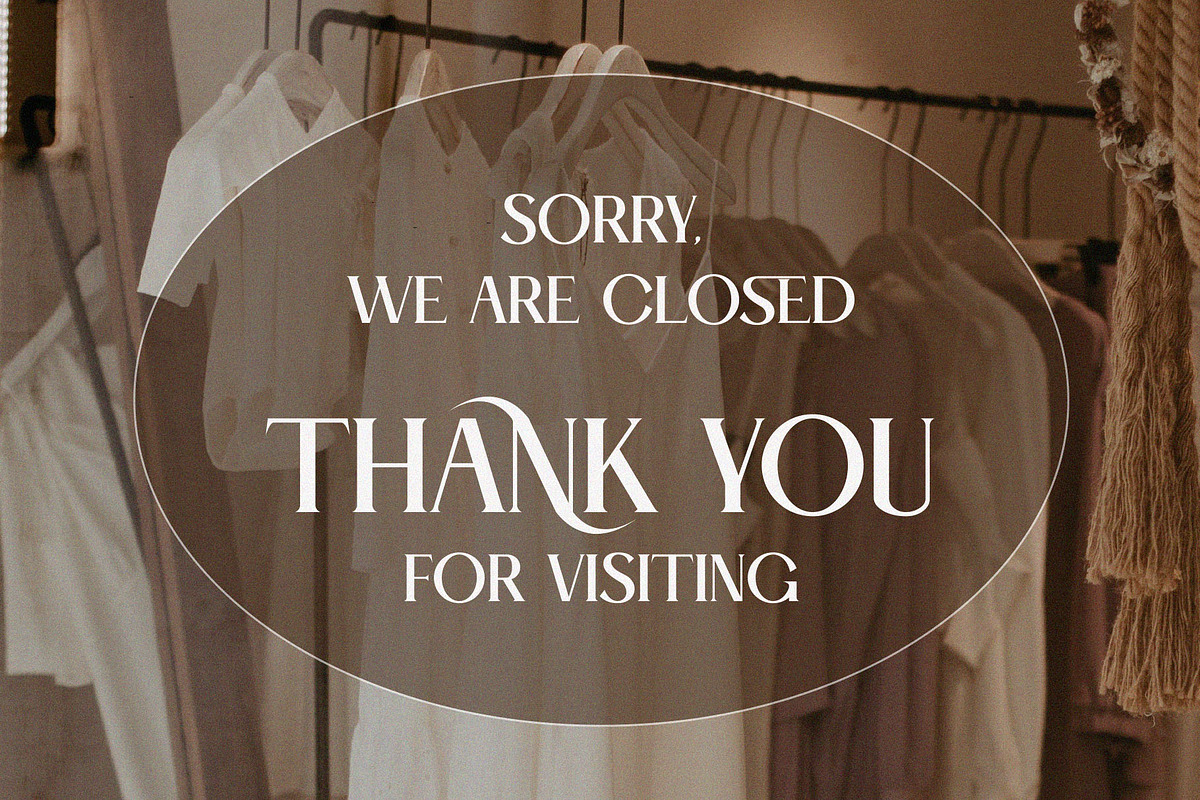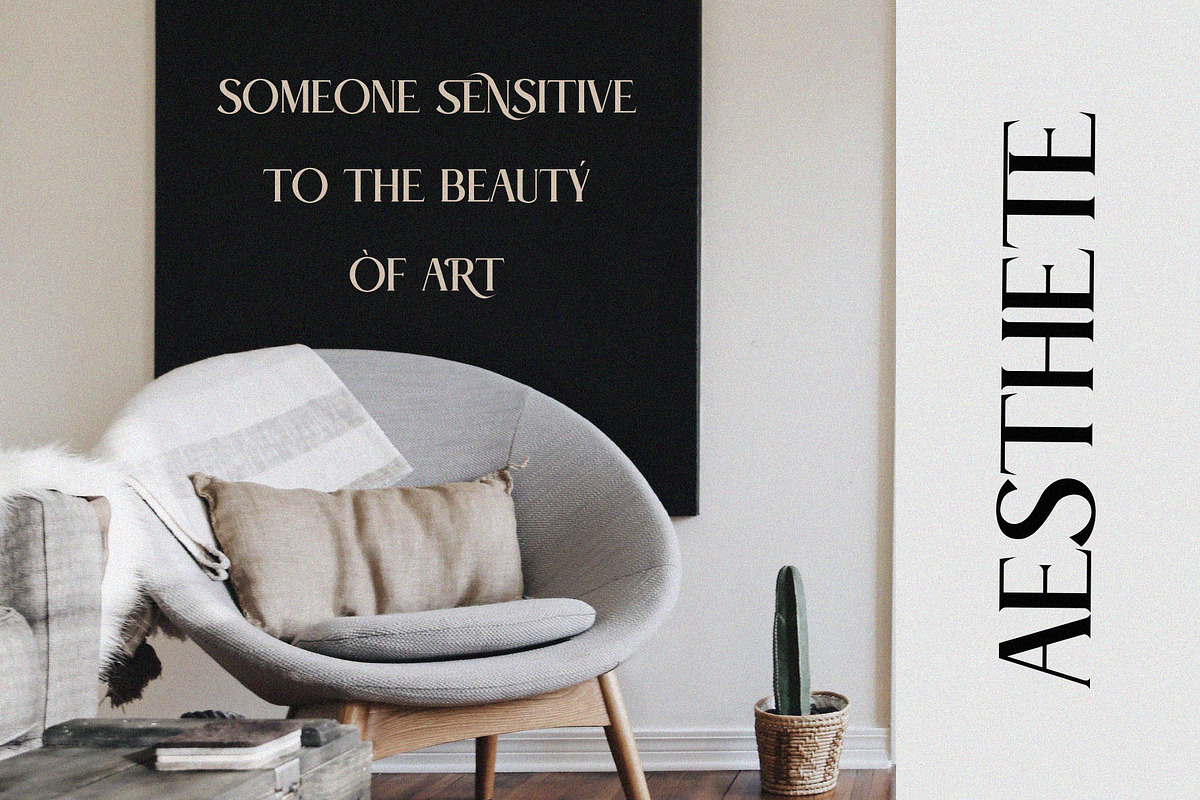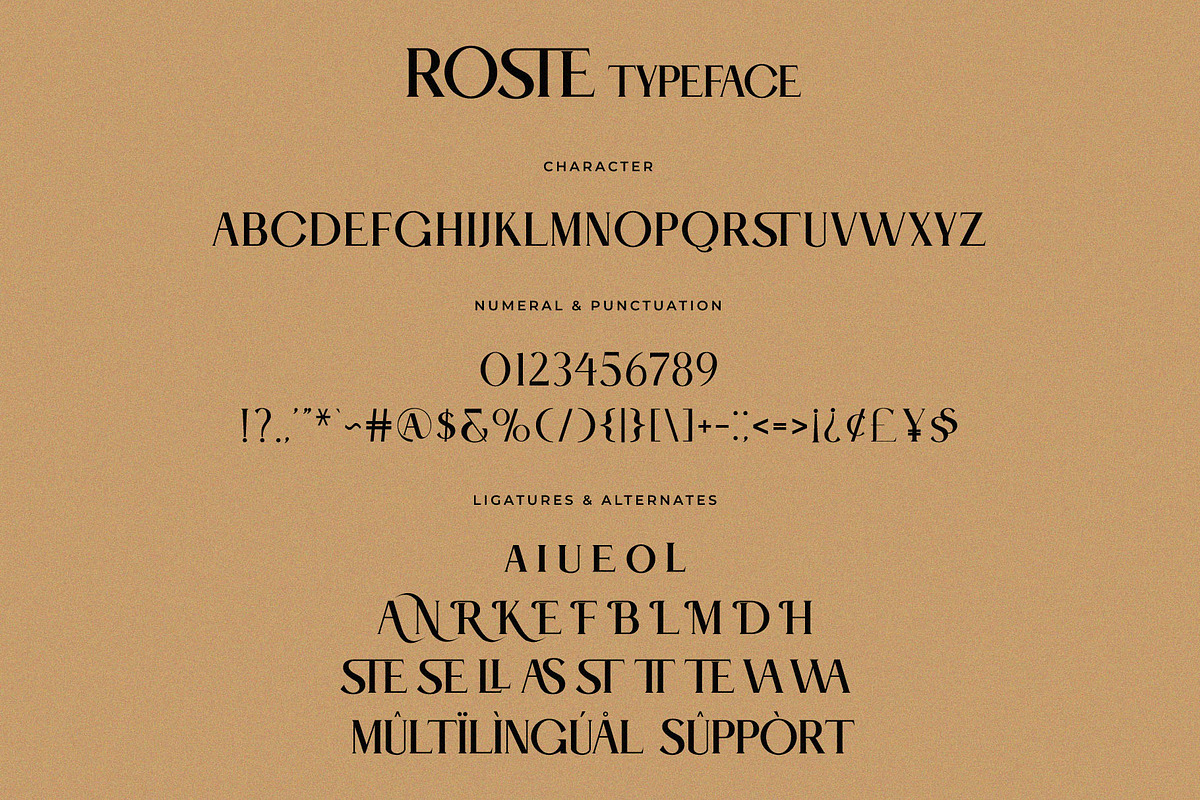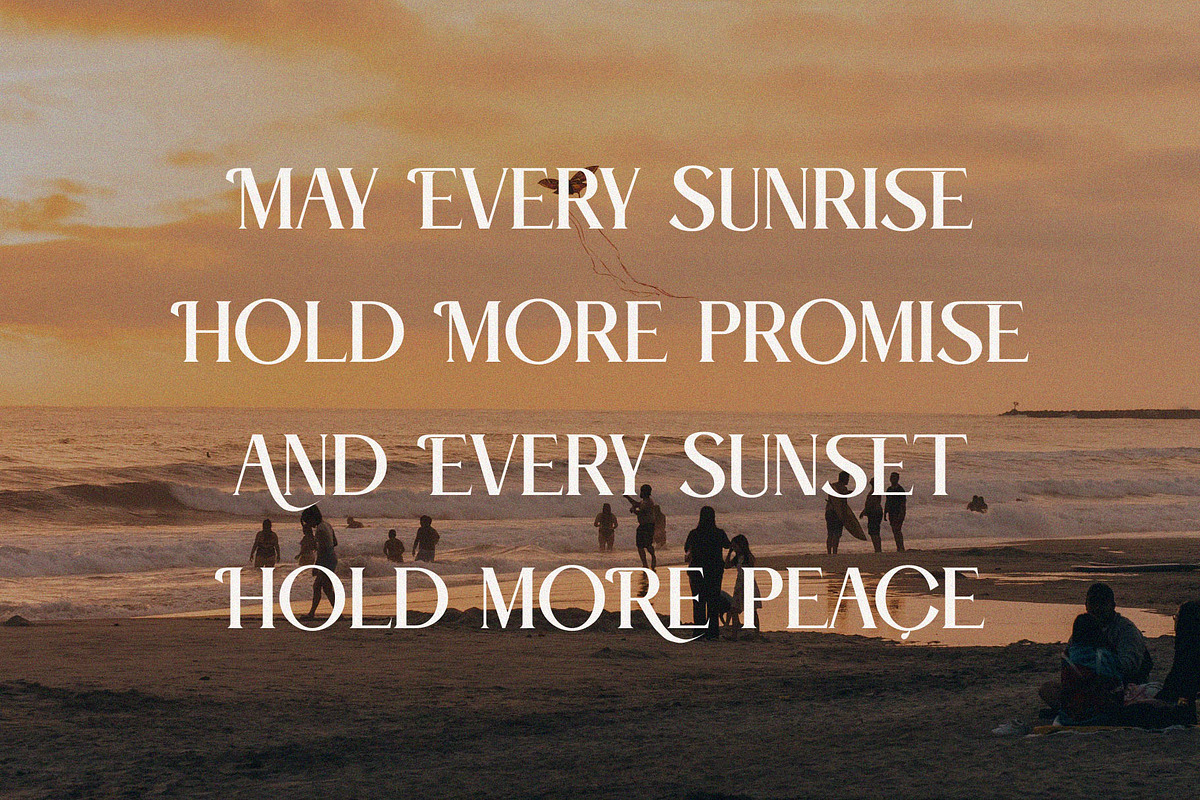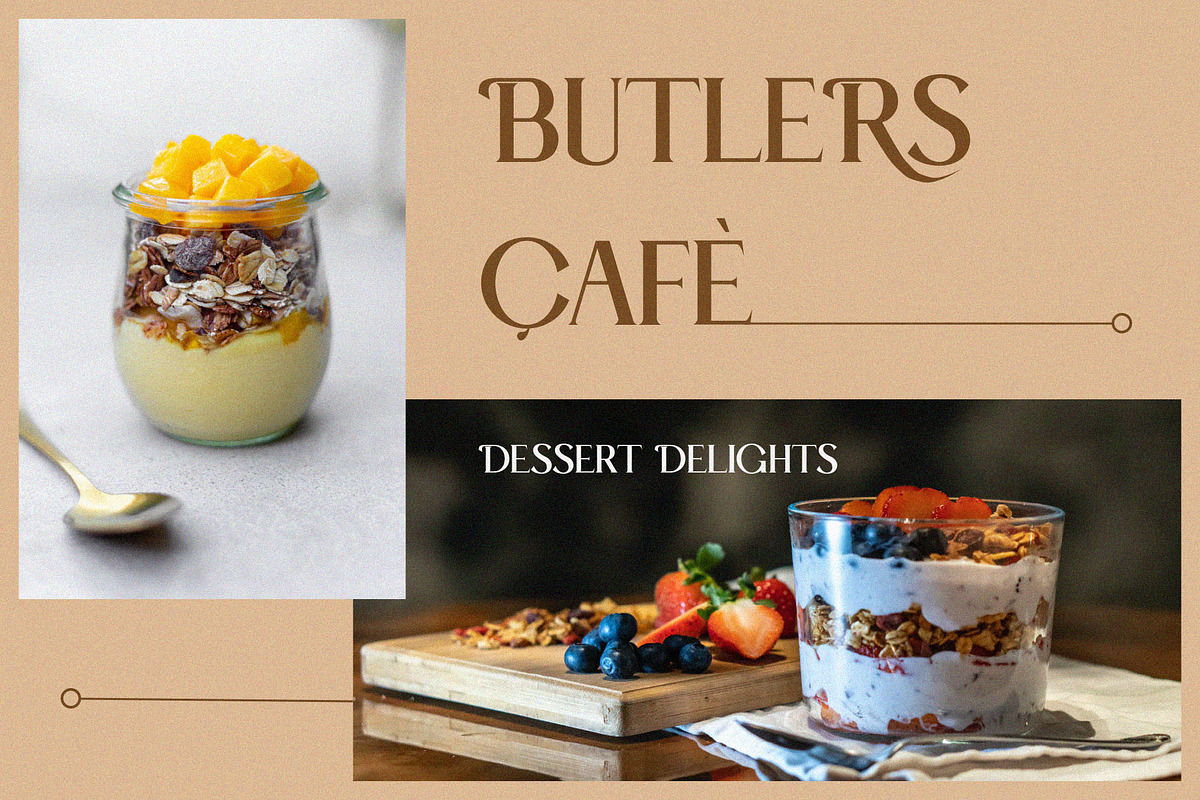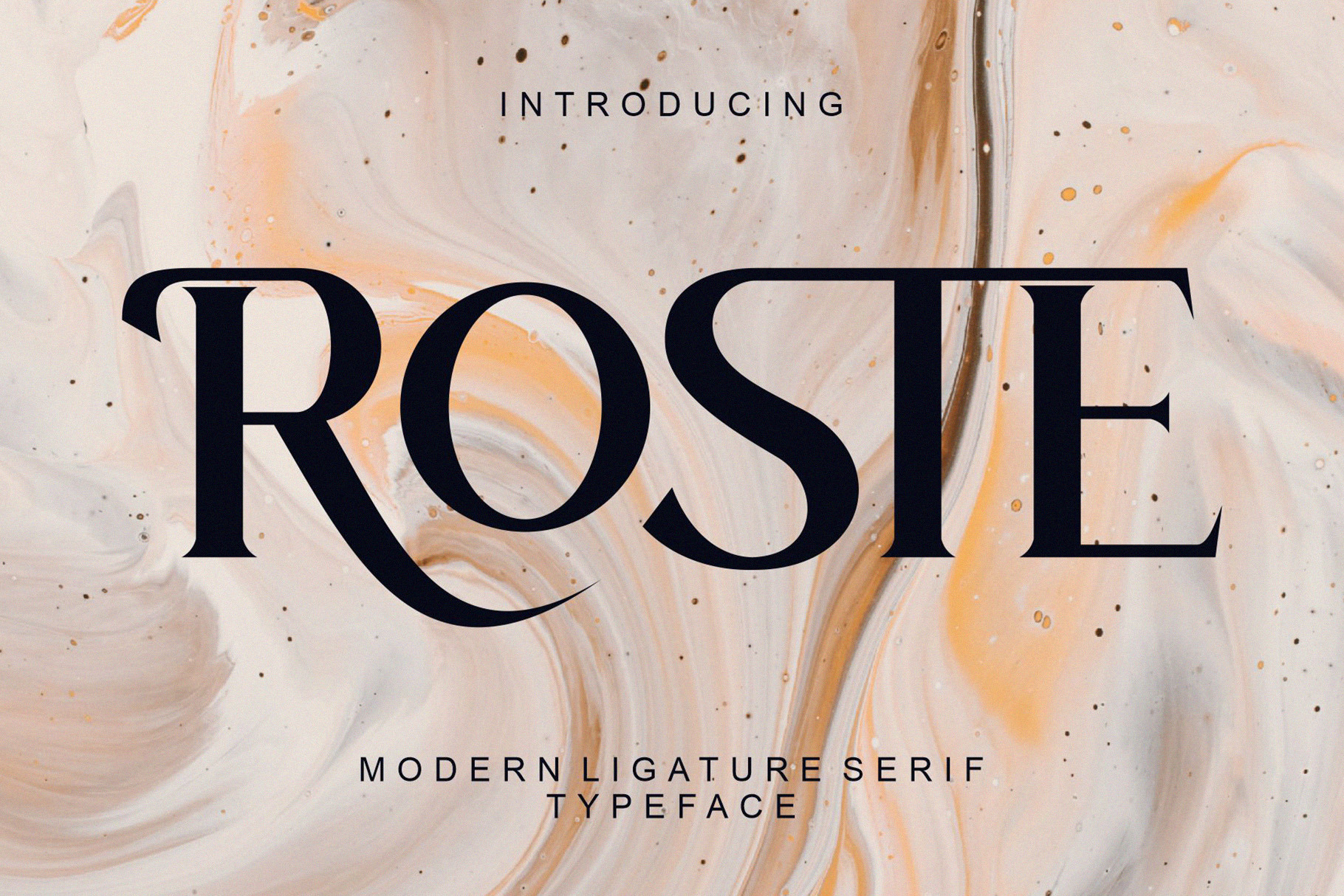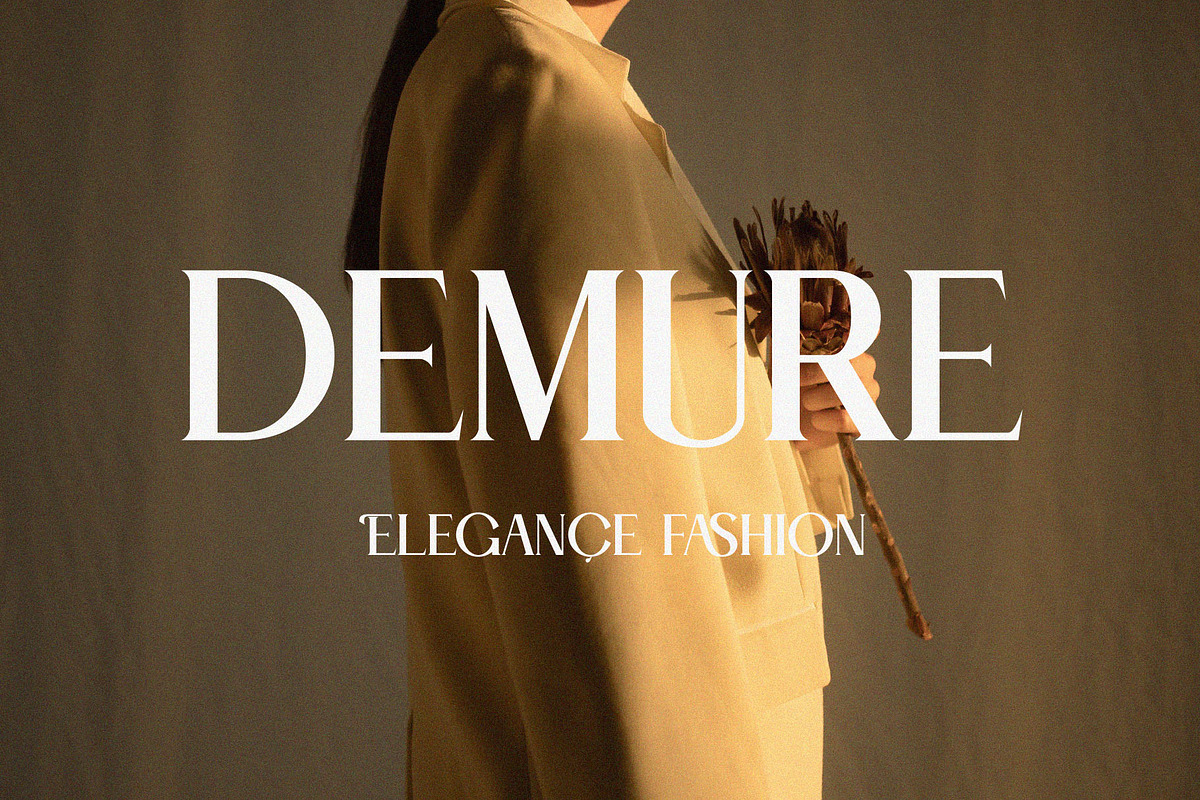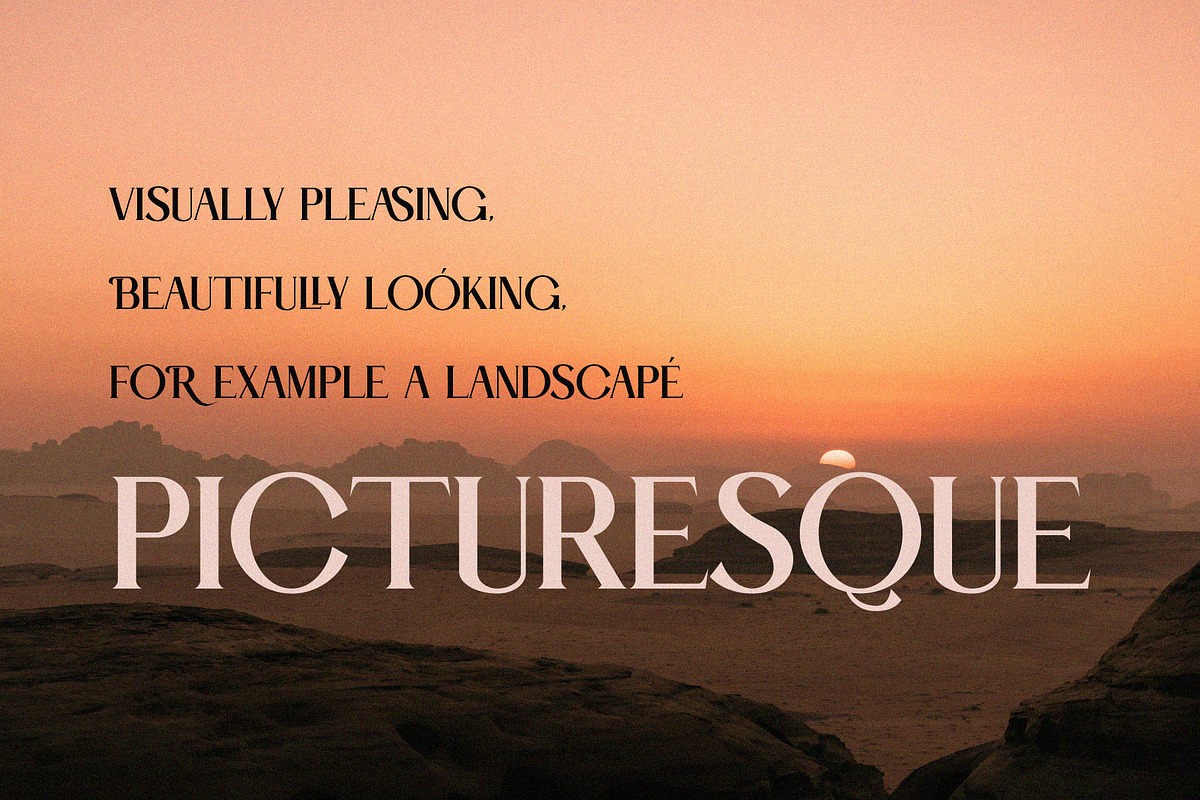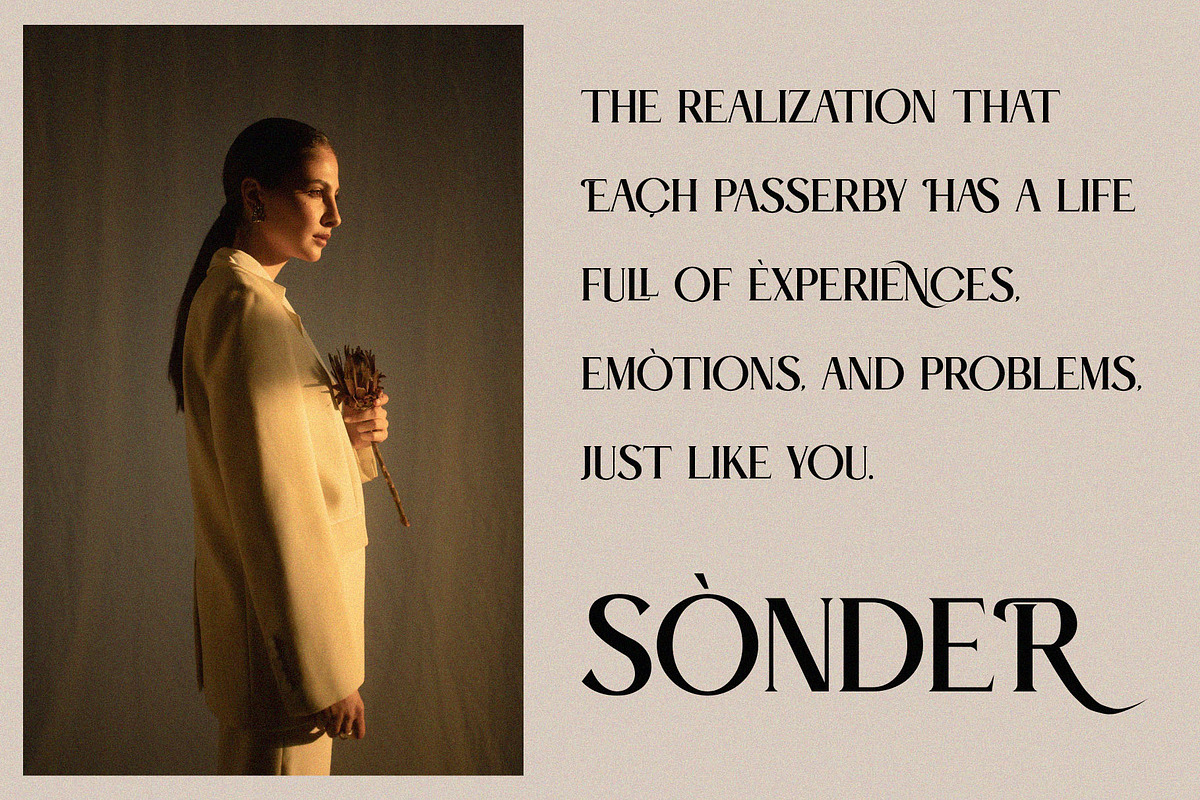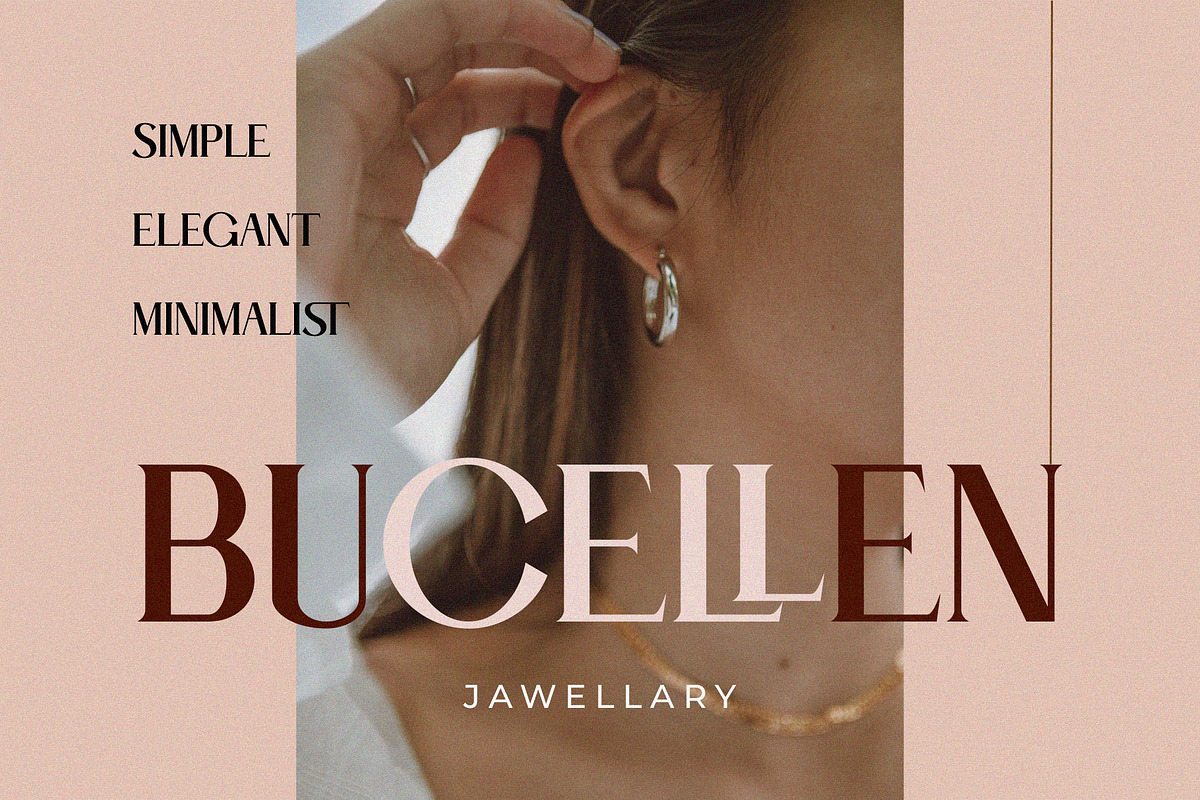
ROSTE Modern Ligature Serif Typeface
ROSTE is a elegant and classy serif typeface – This font is both modern and nostalgic and works great for logos, magazine, social media. Already matched up and ready to be used together for your next design! For those of you who are needing a touch of elegant, stylish, classy, chic and modernity for your designs, this font was created for you! ROSTE was built with OpenType features and includes ligatures, numbers, punctuation, and it also supports other languages.